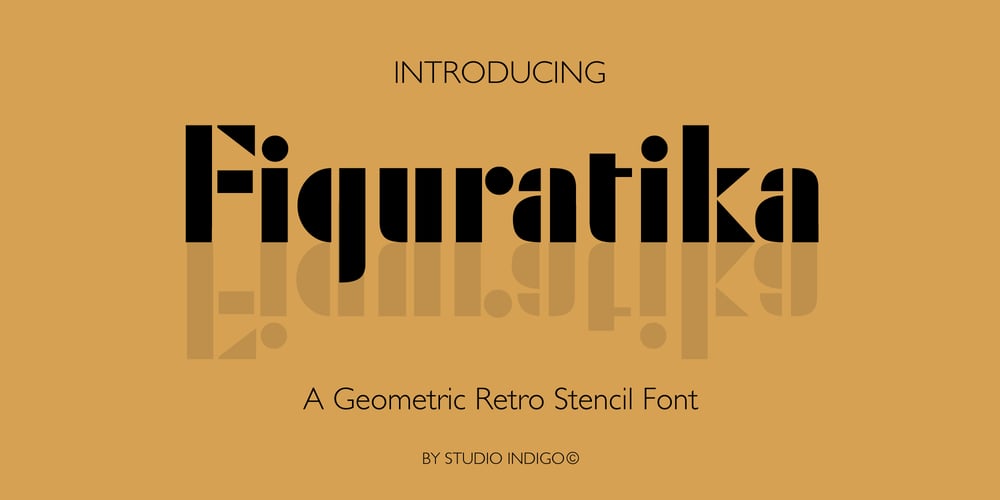
Figuratika Font Family was designed by Helena Öhman and published by Studio Indigo. Figuratika contains 1 styles and family package options. Figuratika with its cut out letters is a bold geometric Art Deco inspired stencil font with a retro 1920 1930 feeling. It was designed as a display font and is best for shorter texts, titles, logos, posters etc. Figuratika has multilingual support for most European languages.